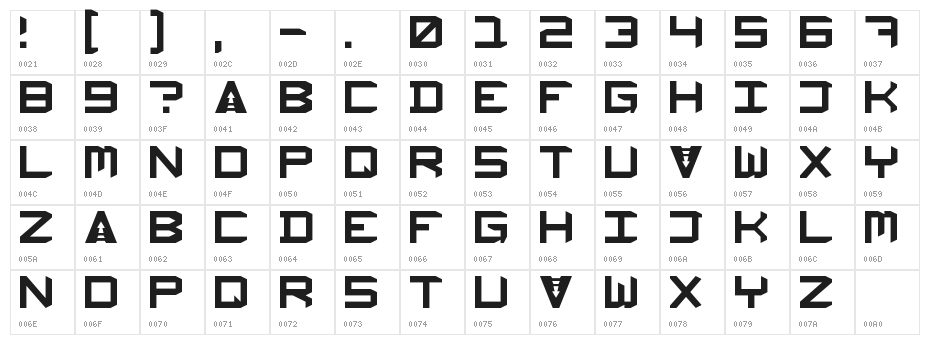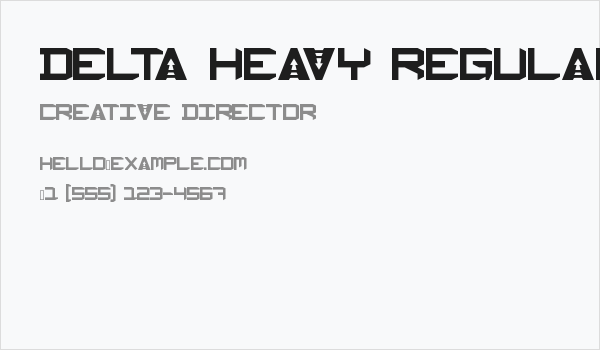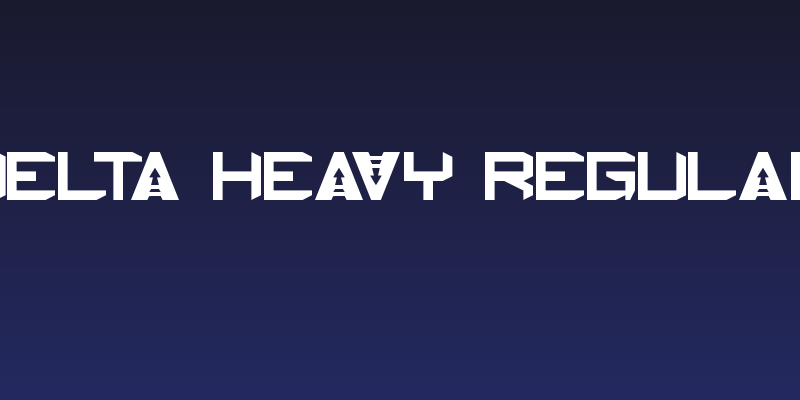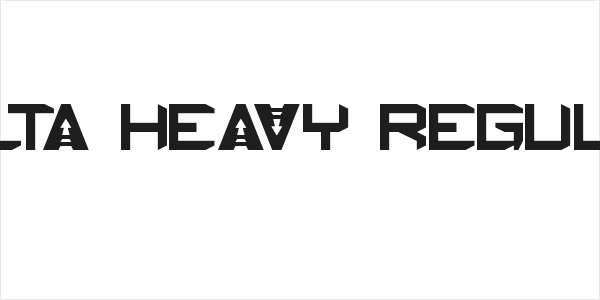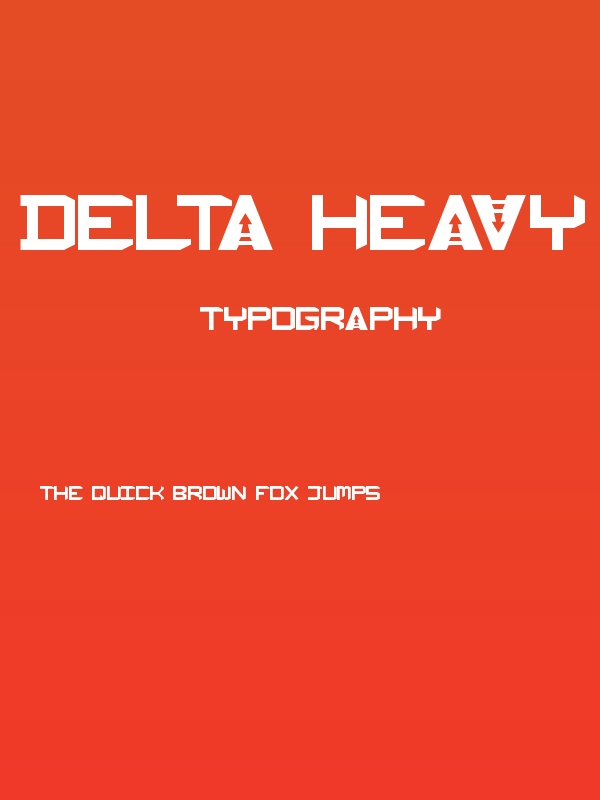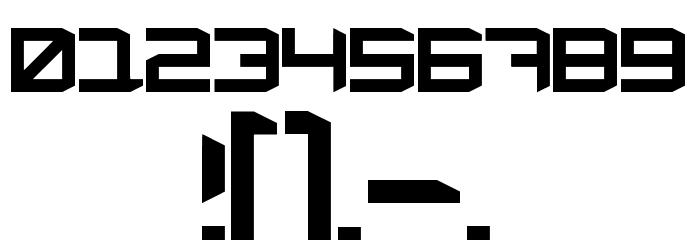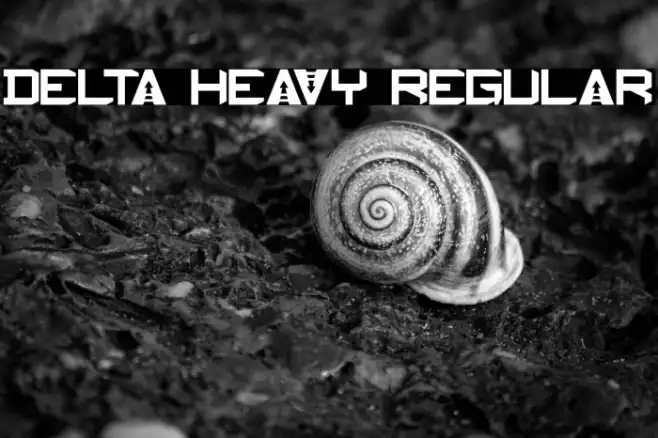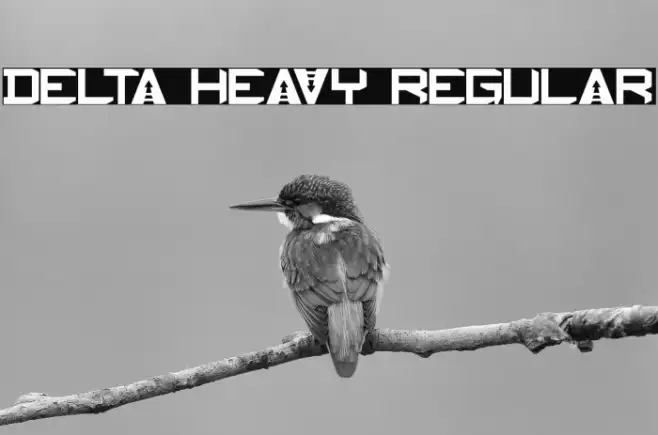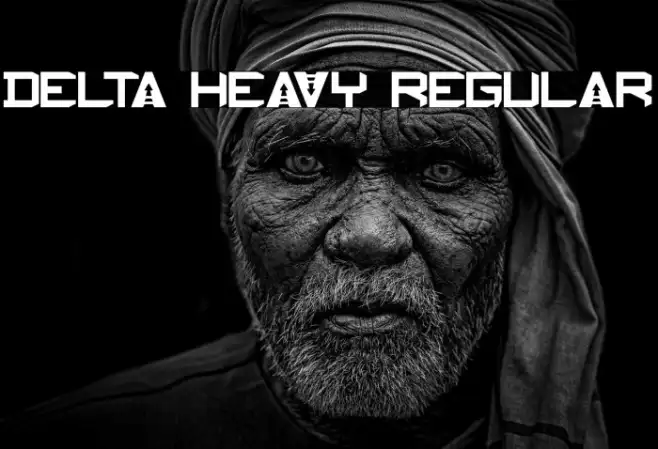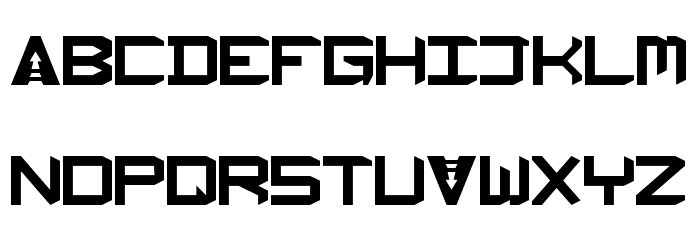
Delta Heavy Regular Font
Delta Heavy Regular Description
This font features a bold, geometric design with a futuristic and industrial feel. The characters are constructed with sharp angles and straight lines, giving it a mechanical and robust appearance. The uppercase letters are particularly striking, with a uniform height and width that create a strong visual impact. The lowercase letters maintain the same angular style, ensuring consistency across the typeface. Numbers and special characters are designed with the same attention to geometric precision, making them stand out. This font is ideal for projects that require a modern and edgy look, such as technology branding, video game titles, or sci-fi themed designs.
| Proposed Projects | Ideal for technology branding, video game titles, and sci-fi themed designs. |